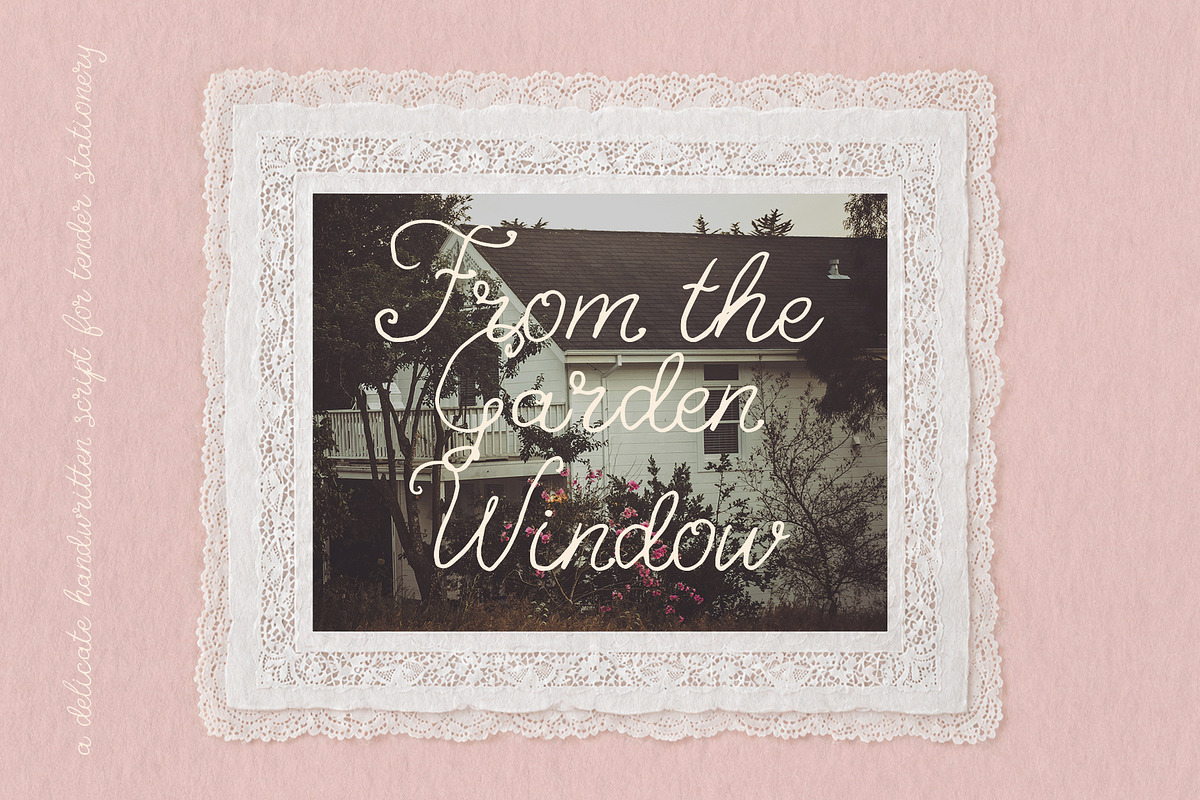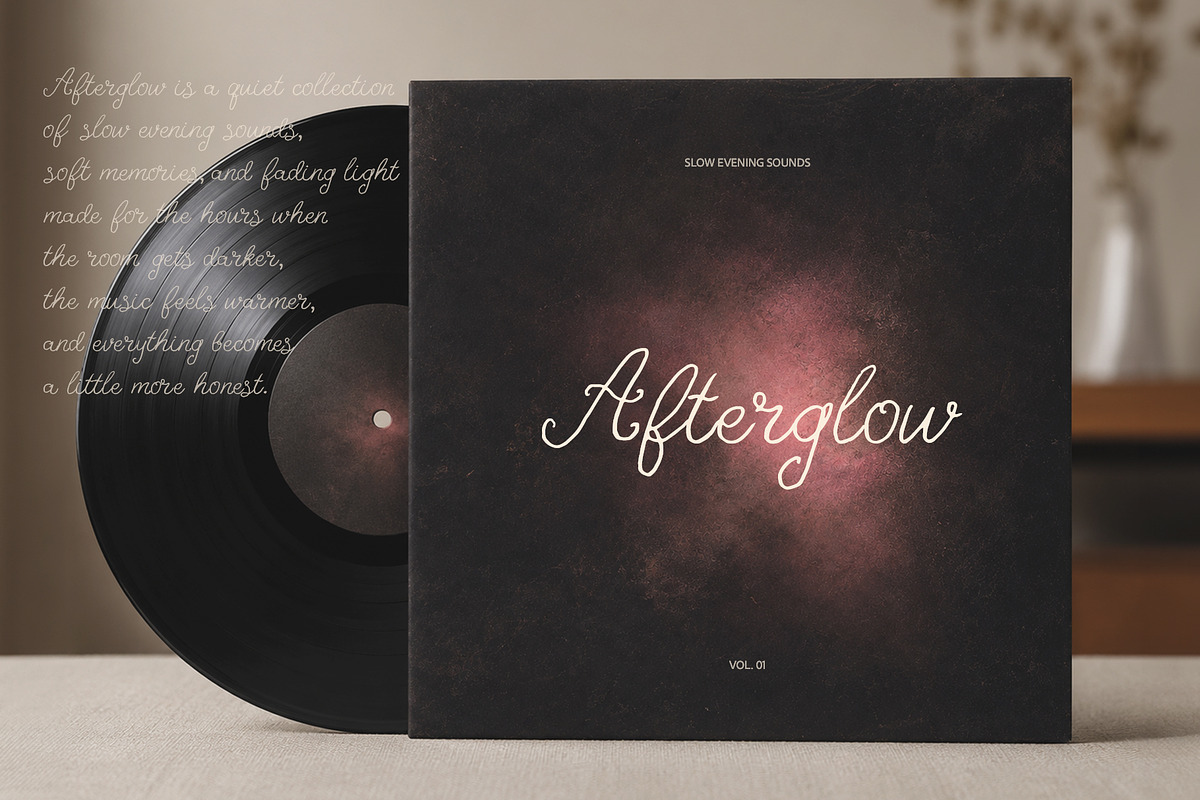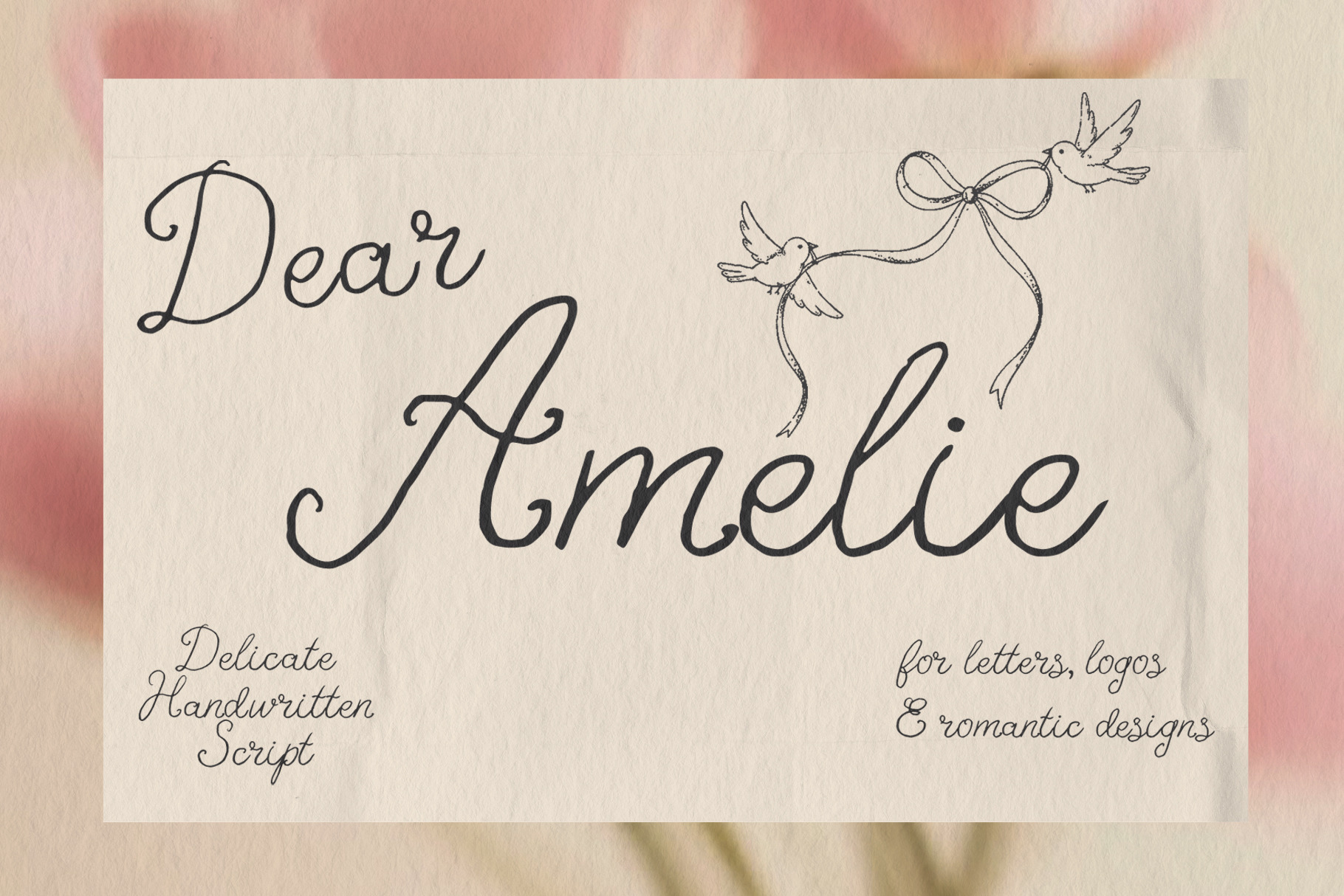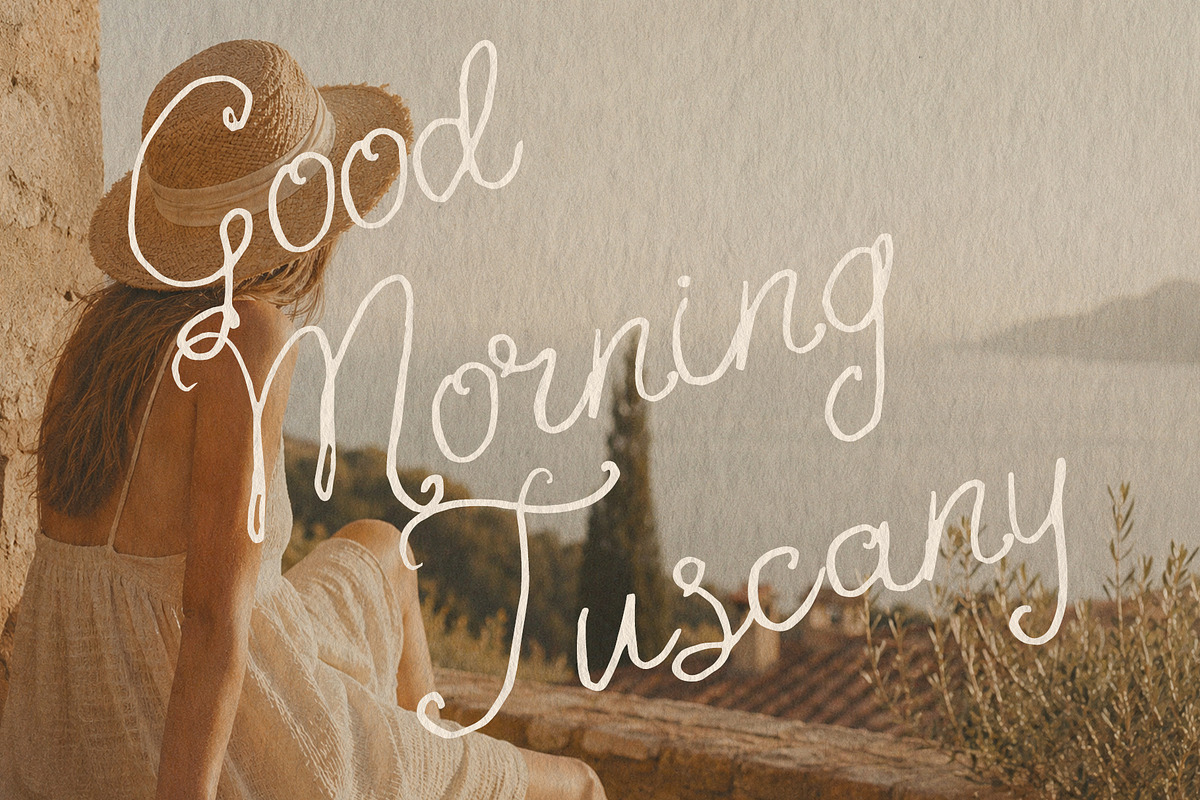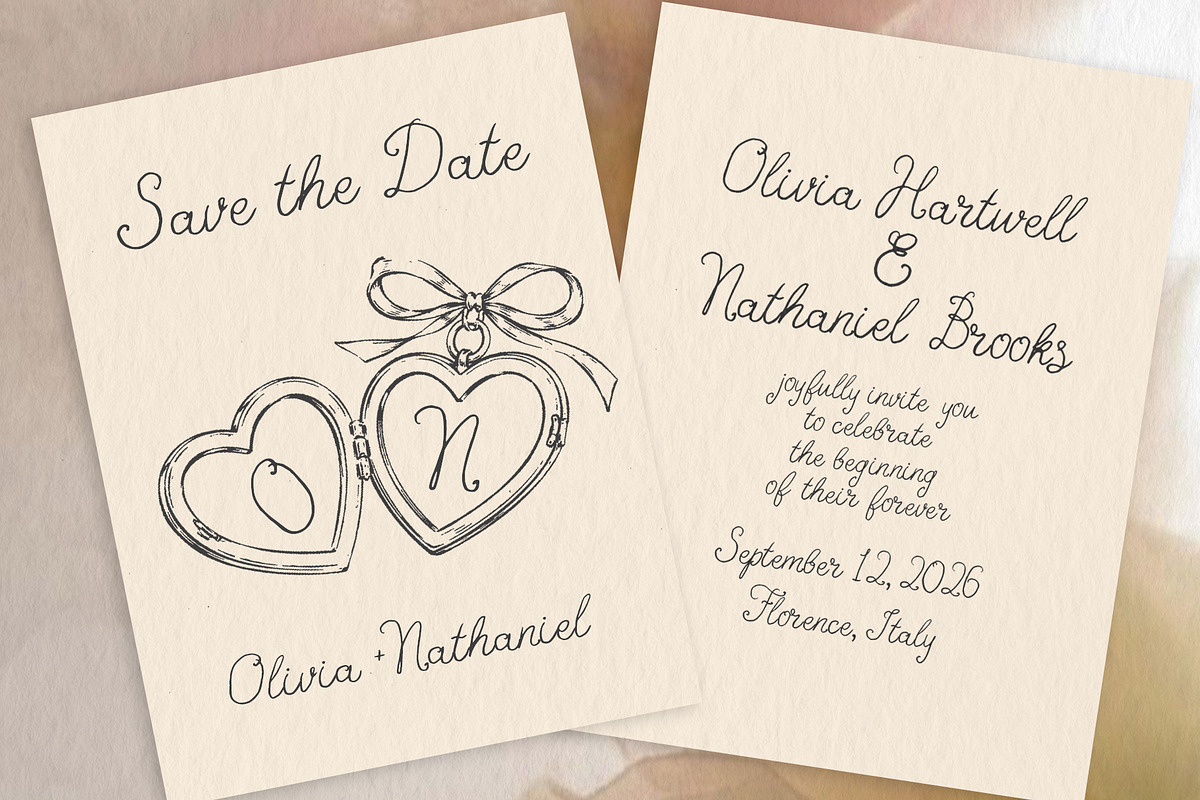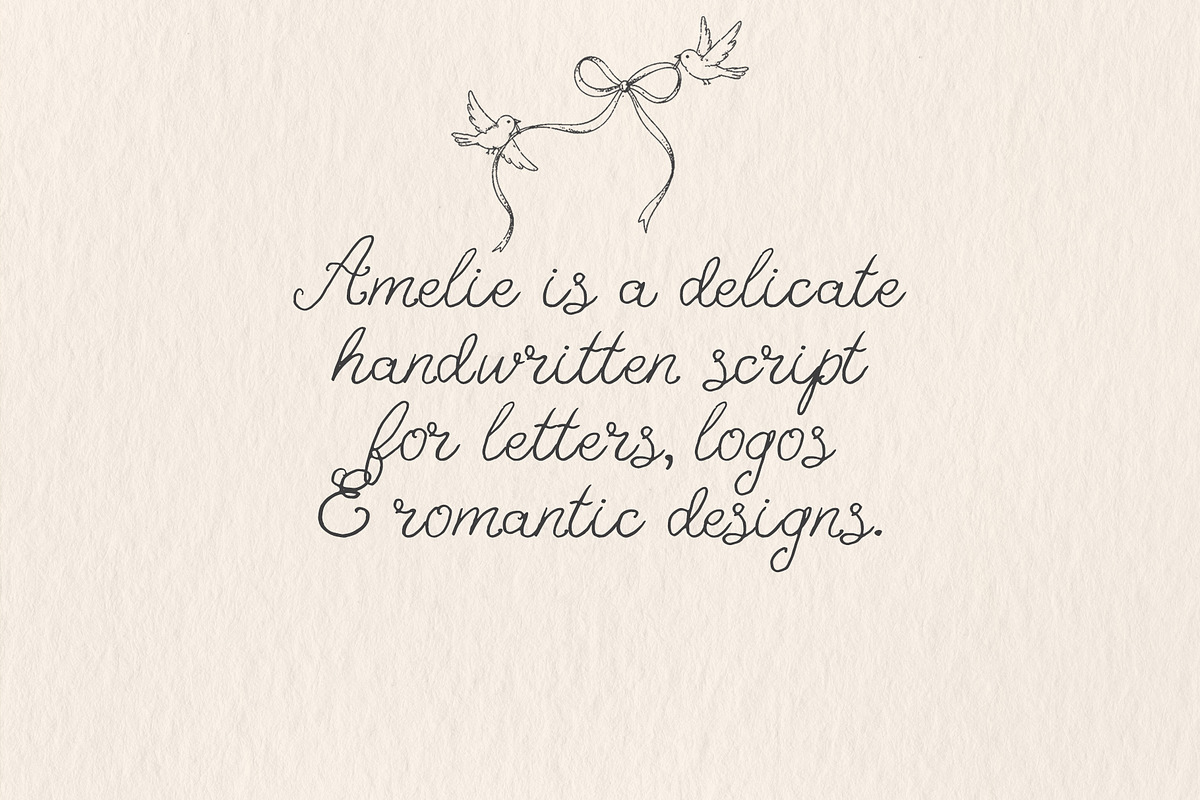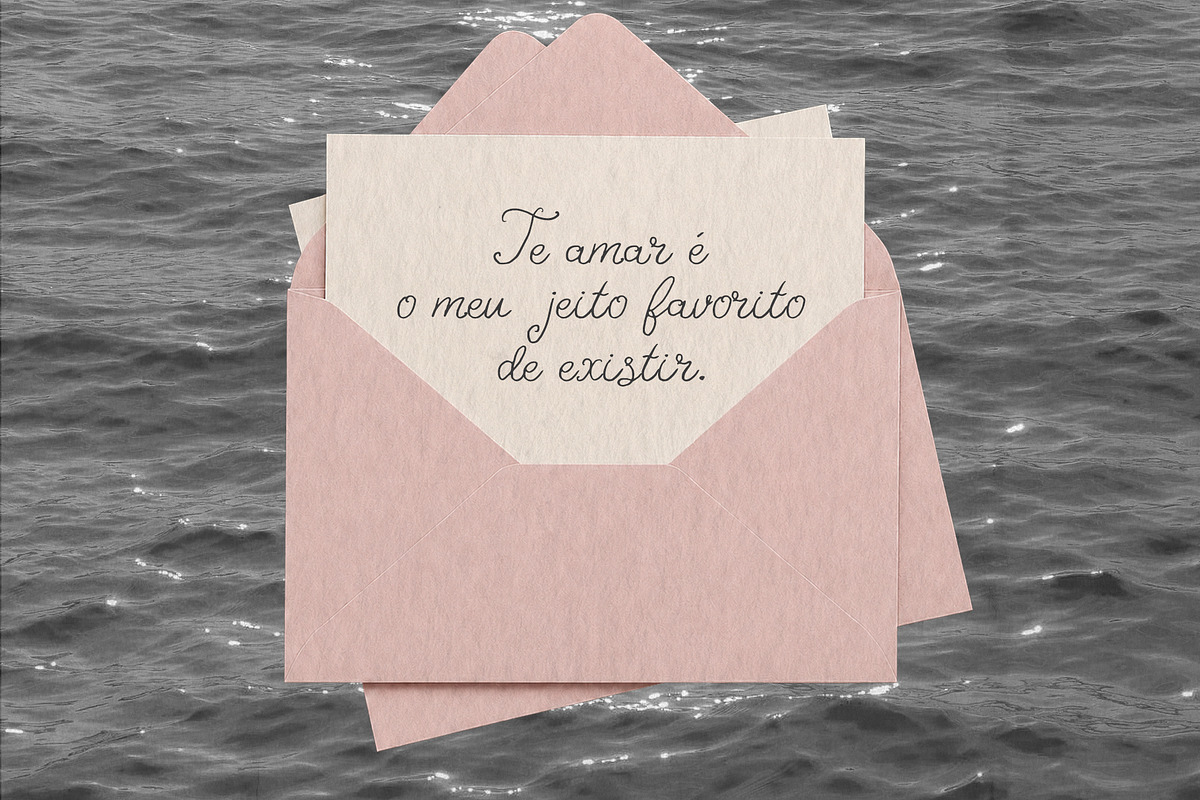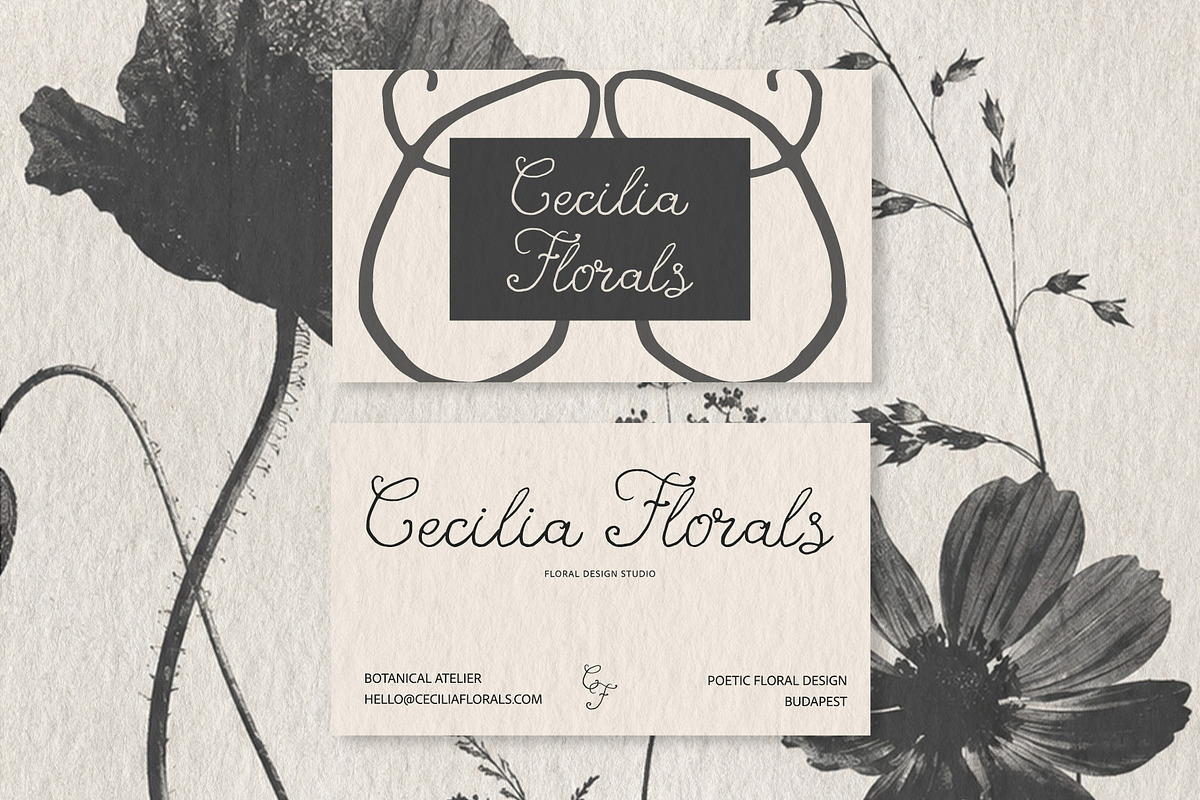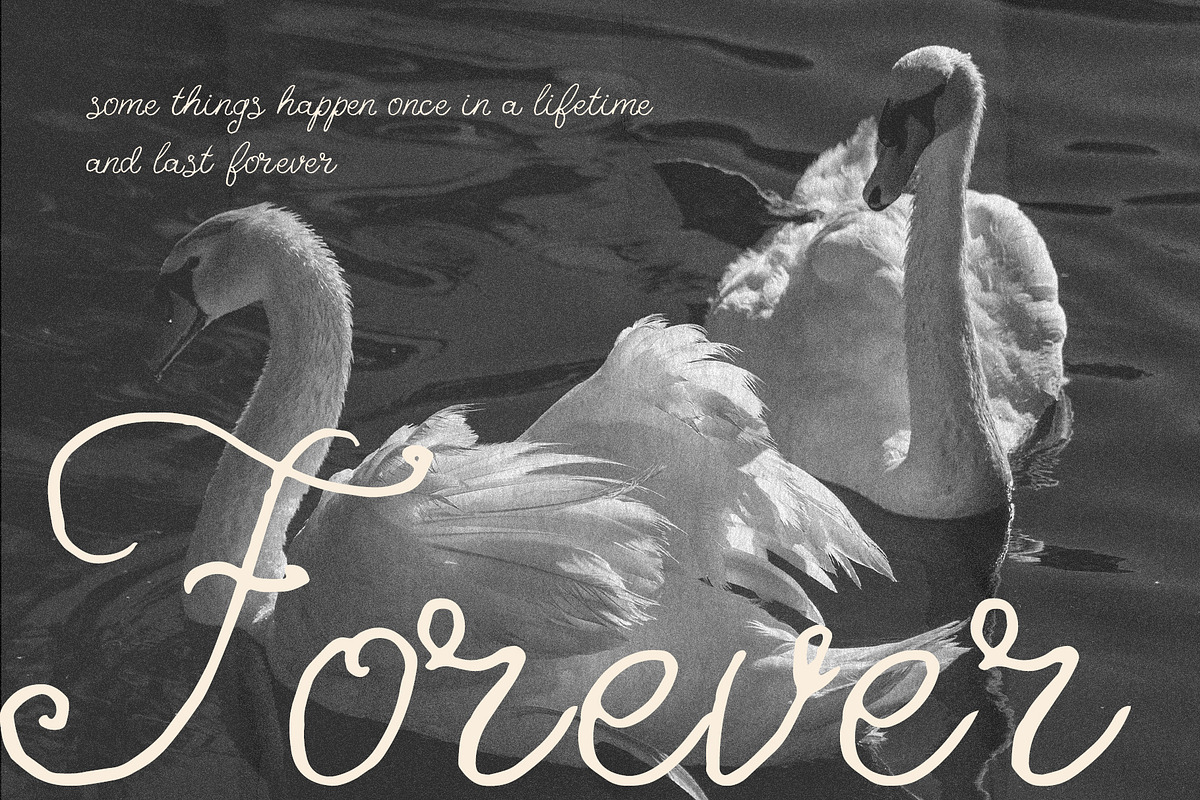
Dear Amelie - Delicate Script Font
Dear Amelie is a delicate handwritten script font with a soft romantic feel and natural handmade charm. It was designed for love letters, wedding stationery, logos, packaging, branding, invitations, social media graphics, and elegant feminine designs.
The font has gentle curves, imperfect handwritten details, and a nostalgic paper-like mood that makes every word feel personal and intimate.
Dear Amelie includes uppercase and lowercase letters, numbers, punctuation, and multilingual support.
Perfect for wedding invitations, romantic logos, greeting cards, thank you notes, packaging, quotes, editorials, and delicate branding projects.